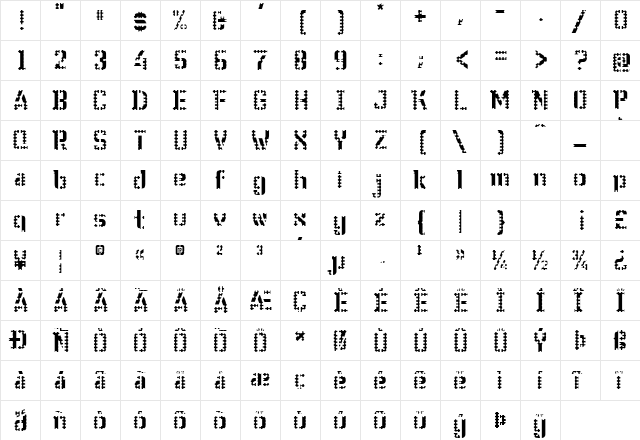
WC Wunderbach Perfo Bta DemiBold
| Foundry | WC Fonts |
| Designer | WC Fonts |
Design Context for WC Wunderbach Perfo Bta Typeface
WC Wunderbach Perfo Bta takes a measured approach to typography — its balanced proportions and neutral character make it a reliable workhorse for both digital and print work. Its bold stroke weight gives it real presence on the page.